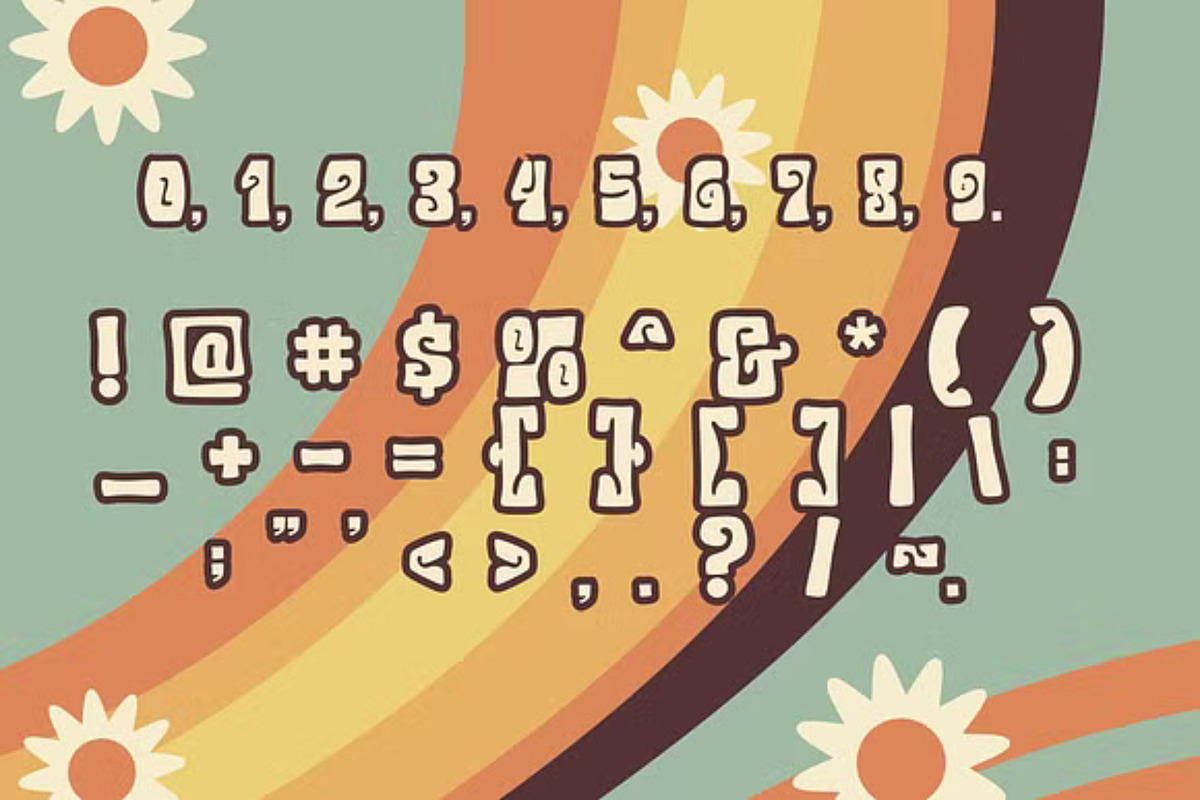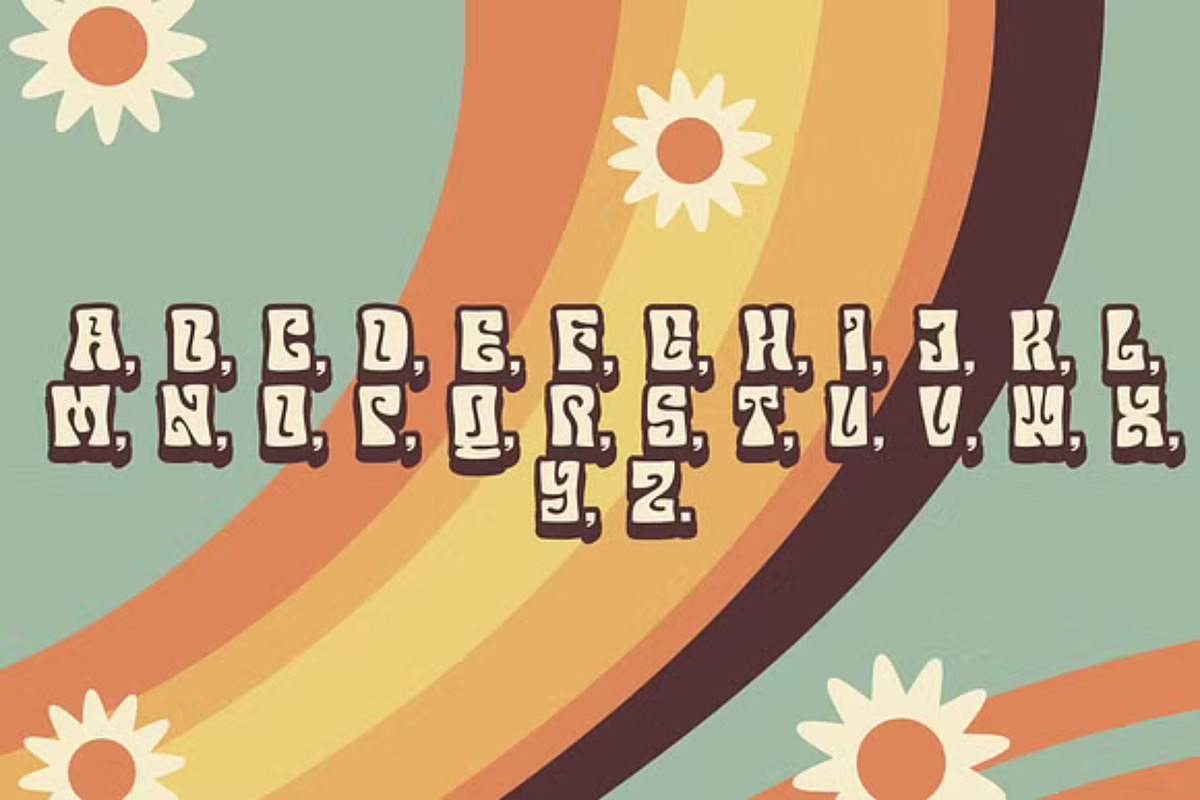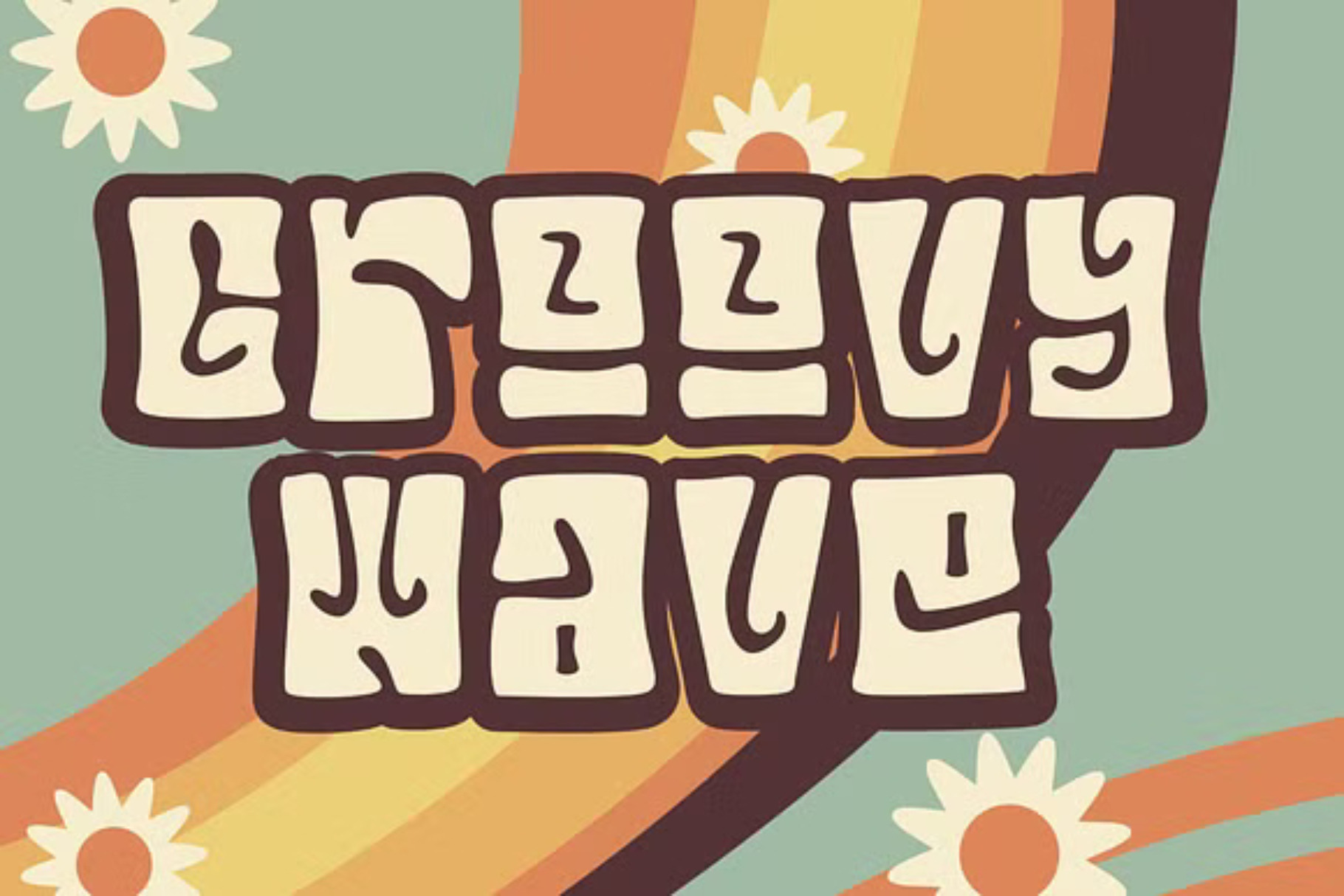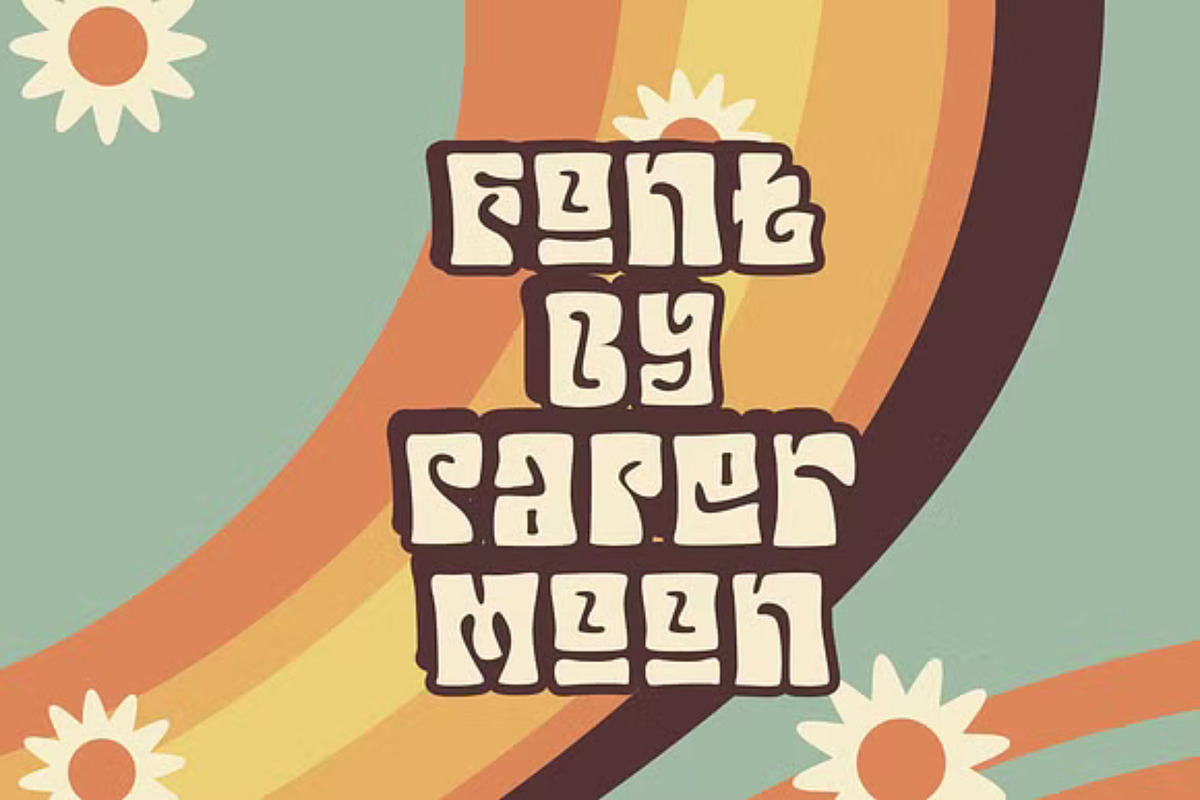
GroovyWave - Retro Font
Introducing GroovyWave Font: The Ultimate '70s Vibe for Your Design Projects!
Get ready to add some funk to your designs with the GroovyWave Font! We’re excited to present the GroovyWave Font 70s Style, a bold and stylish typeface crafted to bring a retro flair and energy to all your creative projects.
Character Set: Complete A-Z for all your typography needs Numerals & Punctuations: OpenType Standard, ideal for dynamic design versatility Accents: Multilingual characters for global design appeal Stylistic Alternates: Add extra flair and character to your creative work The GroovyWave Font is designed to capture the essence of the ‘70s, infusing your projects with a vibrant, vintage touch. Whether you’re working on posters, branding, or social media graphics, this font delivers the perfect balance of retro and modern to make your designs pop.
Let your creativity groove with GroovyWave, bringing that classic '70s energy into everything you create. Each character is crafted with attention to detail, ensuring your typography stands out with style and personality.
Unleash your creativity, get funky, and make a statement with the GroovyWave Font – your go-to typeface for retro-inspired design excellence!